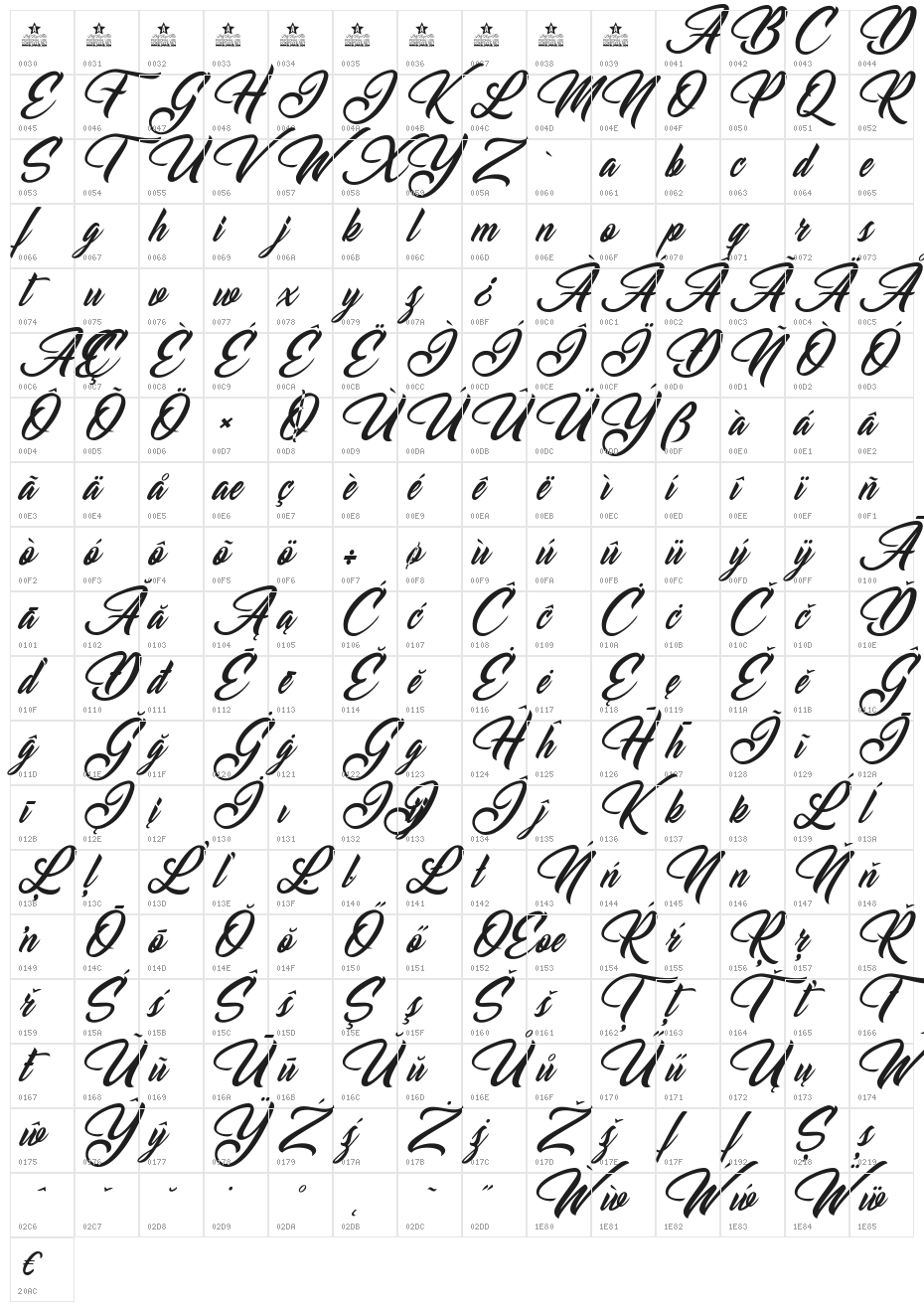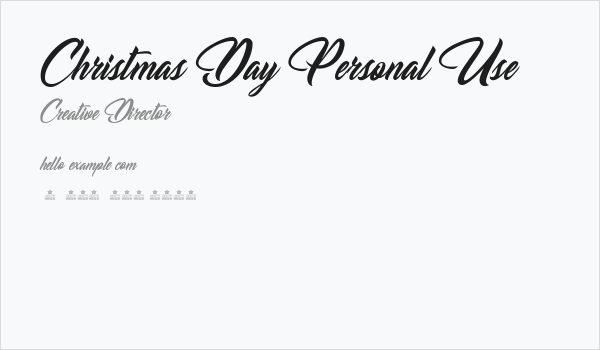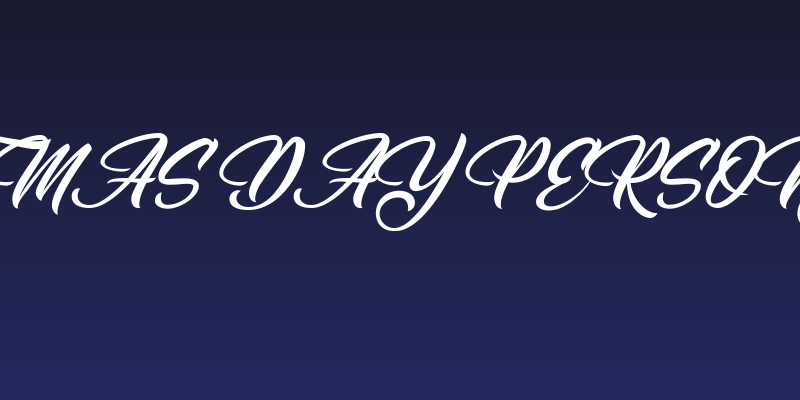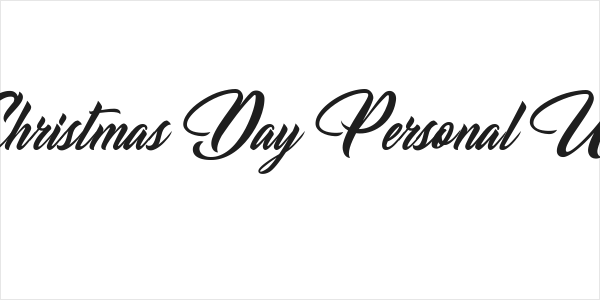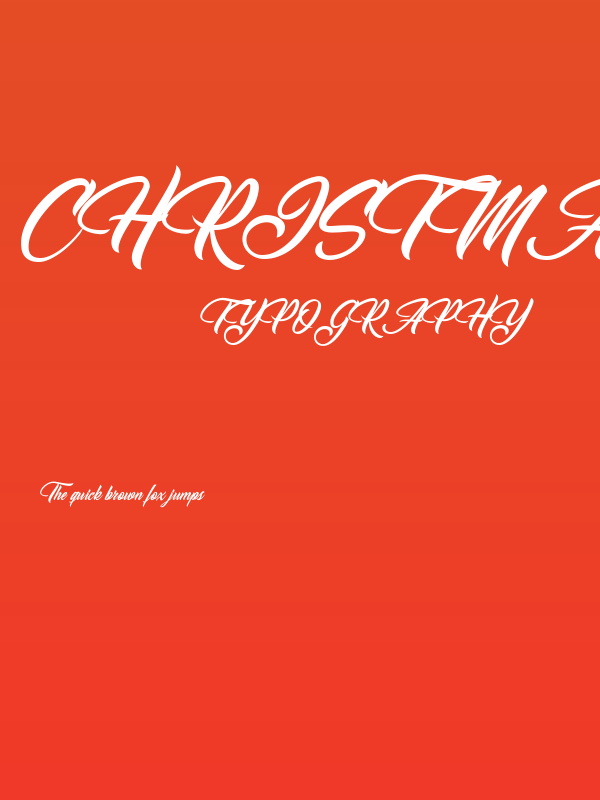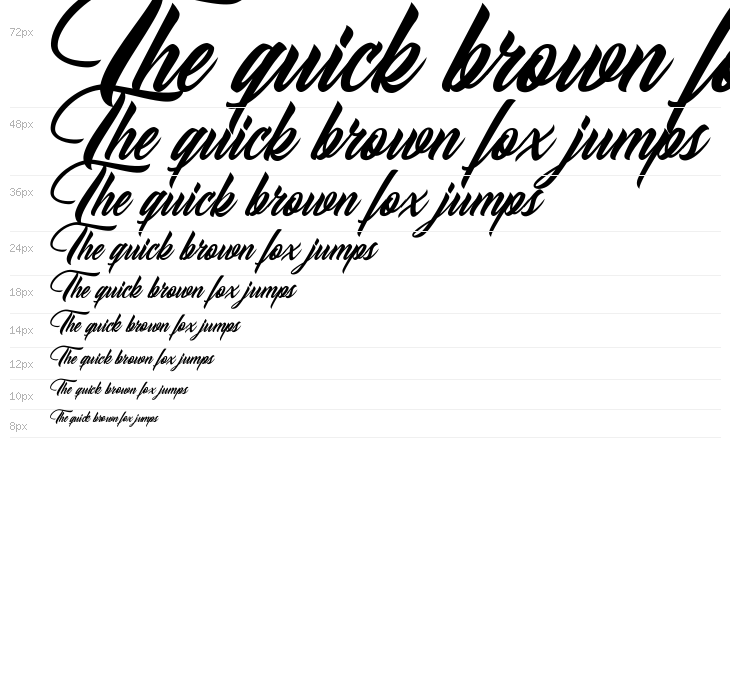
Christmas Day Personal Use Font
Christmas Day Personal Use Description
This font features an elegant and flowing script style, characterized by its cursive, handwritten appearance. The uppercase letters are ornate with sweeping curves and loops, while the lowercase letters maintain a consistent fluidity, enhancing the overall aesthetic. The numbers and special characters are designed to complement the letters, maintaining the same graceful style. This font exudes a sense of sophistication and is ideal for projects that require a touch of elegance and personal flair.
| Proposed Projects | Ideal for wedding invitations, greeting cards, elegant branding, and decorative projects. |